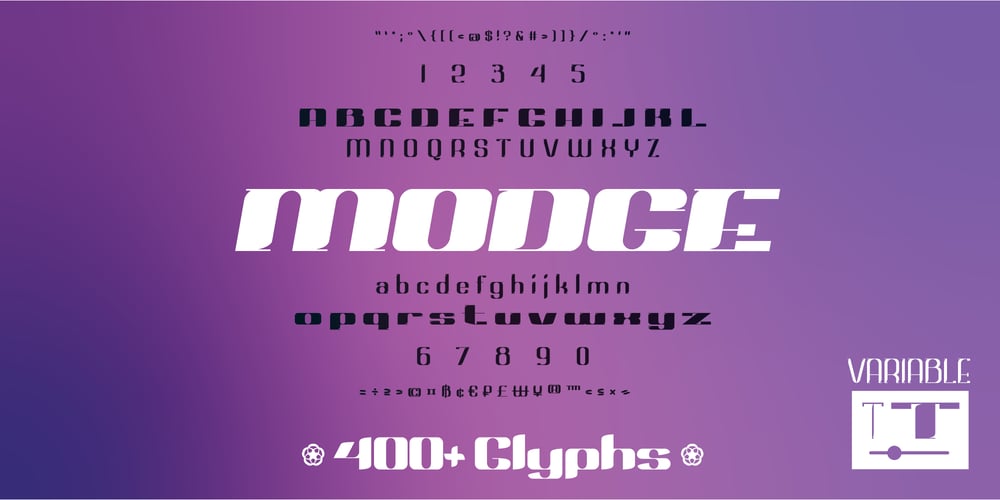
Modge Font Family was designed by published by Varifont. Modge contains 37 styles and family package options. Modge is a modern, sleek font family with very high contrast. Perfect for forward-thinking designers looking to stand out, Modge evokes turn of the century modern serifs, while standing apart with it’s asymmetrical curves and extreme thick to thin contrast. Modge pairs great with geometric fonts and is perfect for fashion, technology, and attention-grabbing brands. Modge demands your attention.